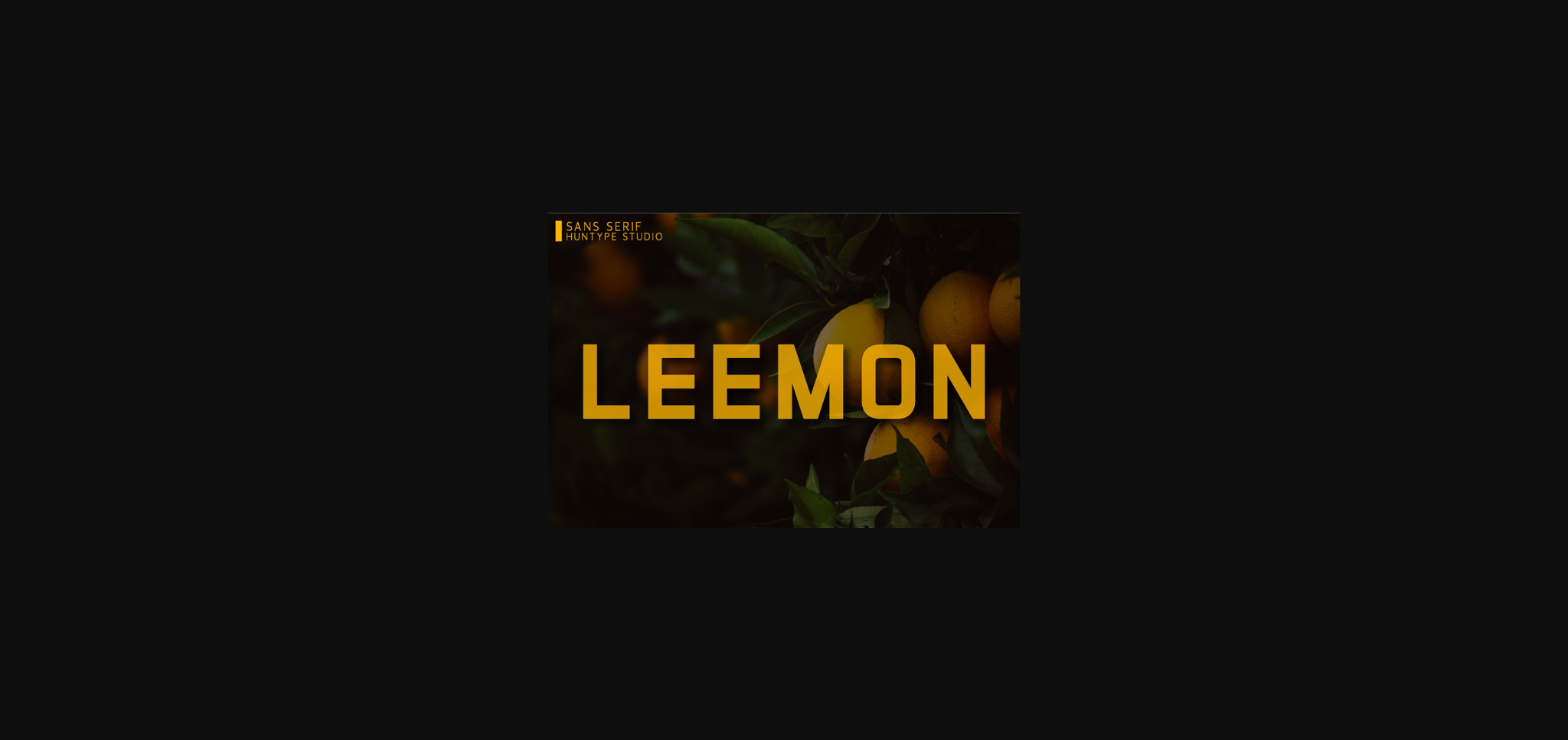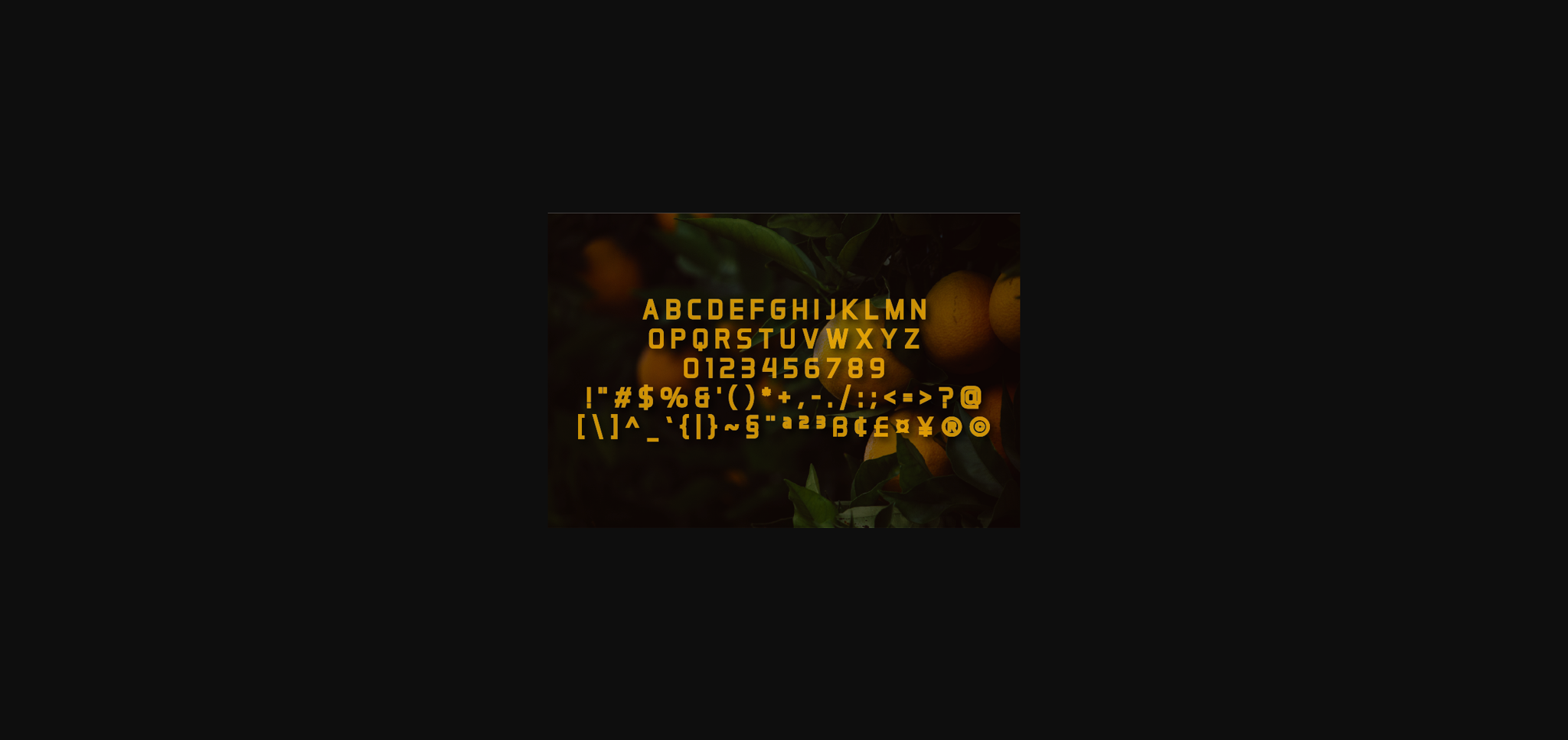
About Leemon Font
Leemon is a simple and casual sans serif font with an undeniably clean feel. With its neat and beautiful arrangement of letters, this typeface will look outstanding in both formal and non-formal designs.